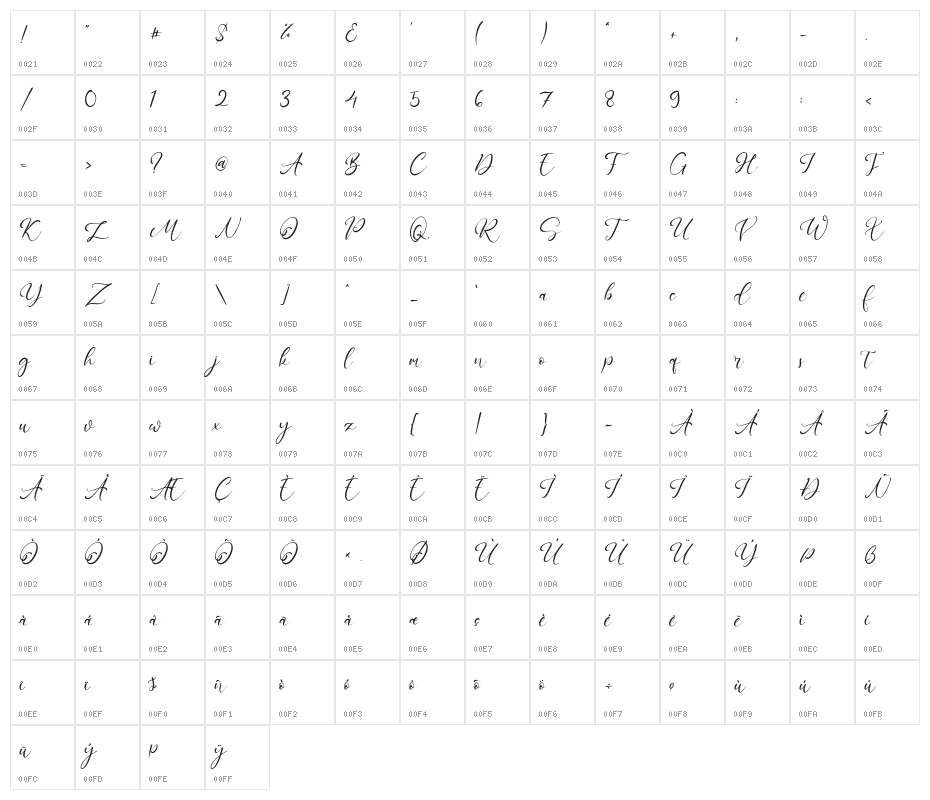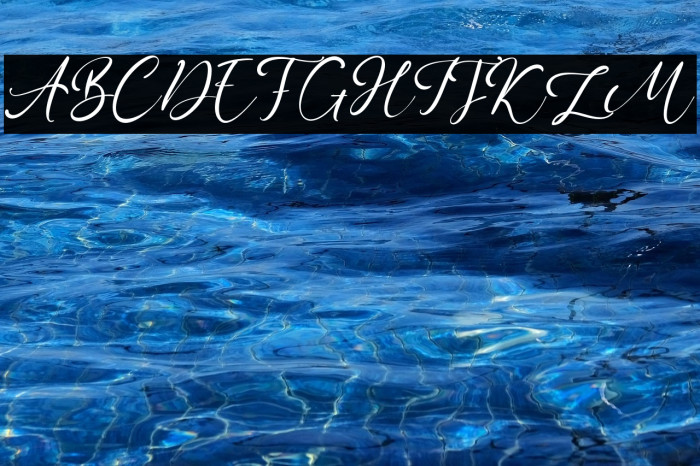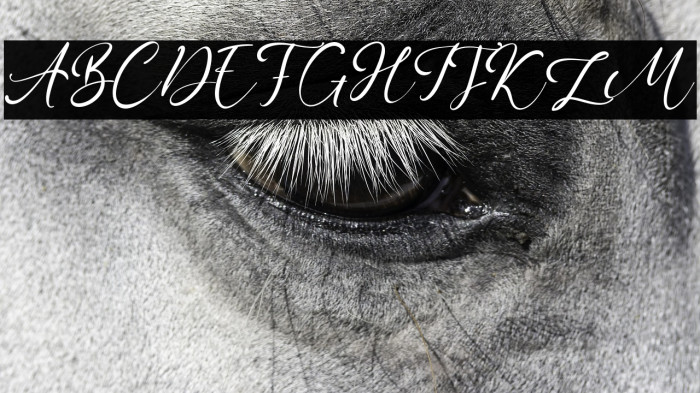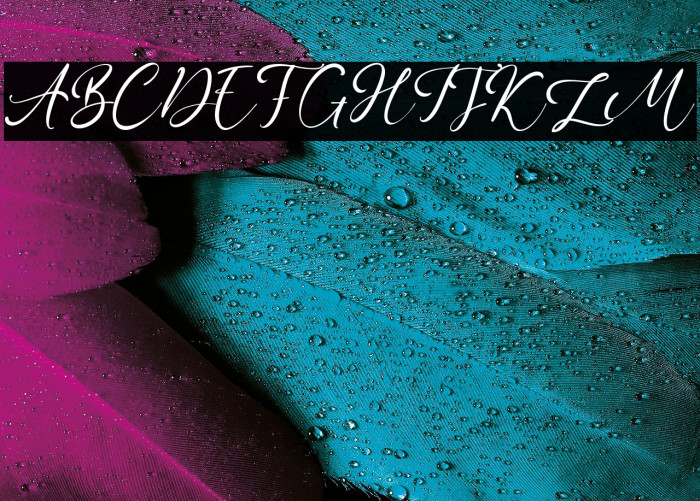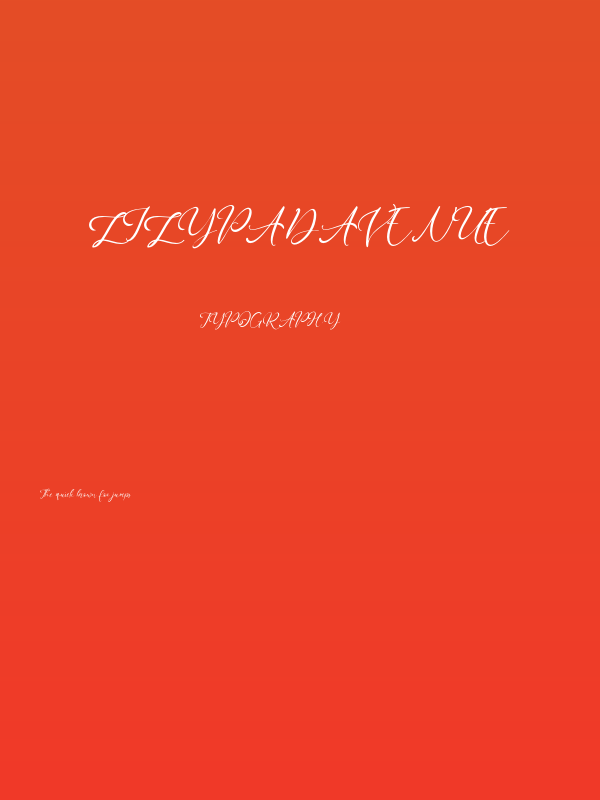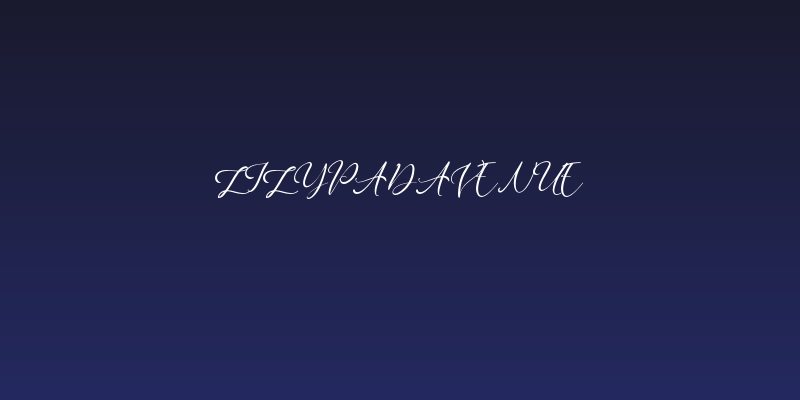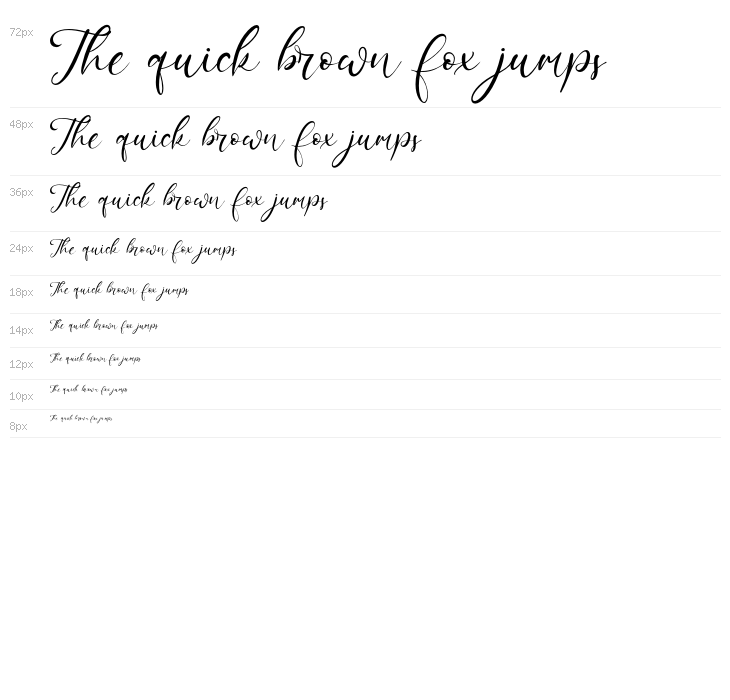
LilypadAvenue Font
LilypadAvenue Description
This elegant script font features fluid, cursive strokes that convey a sense of sophistication and grace. The uppercase letters are characterized by sweeping loops and flourishes, while the lowercase letters maintain a consistent flow with gentle curves and connections. The numerals are styled to match the overall script aesthetic, offering a cohesive look. Special characters are thoughtfully designed to complement the letters, enhancing the font's versatility. This font is ideal for projects that require a touch of elegance and personal flair, such as invitations, branding, and decorative text.
| Use Case | Headlines, Invitations, Branding |
| Proposed Projects | Ideal for wedding invitations, elegant branding, personal stationery, and decorative signage. |